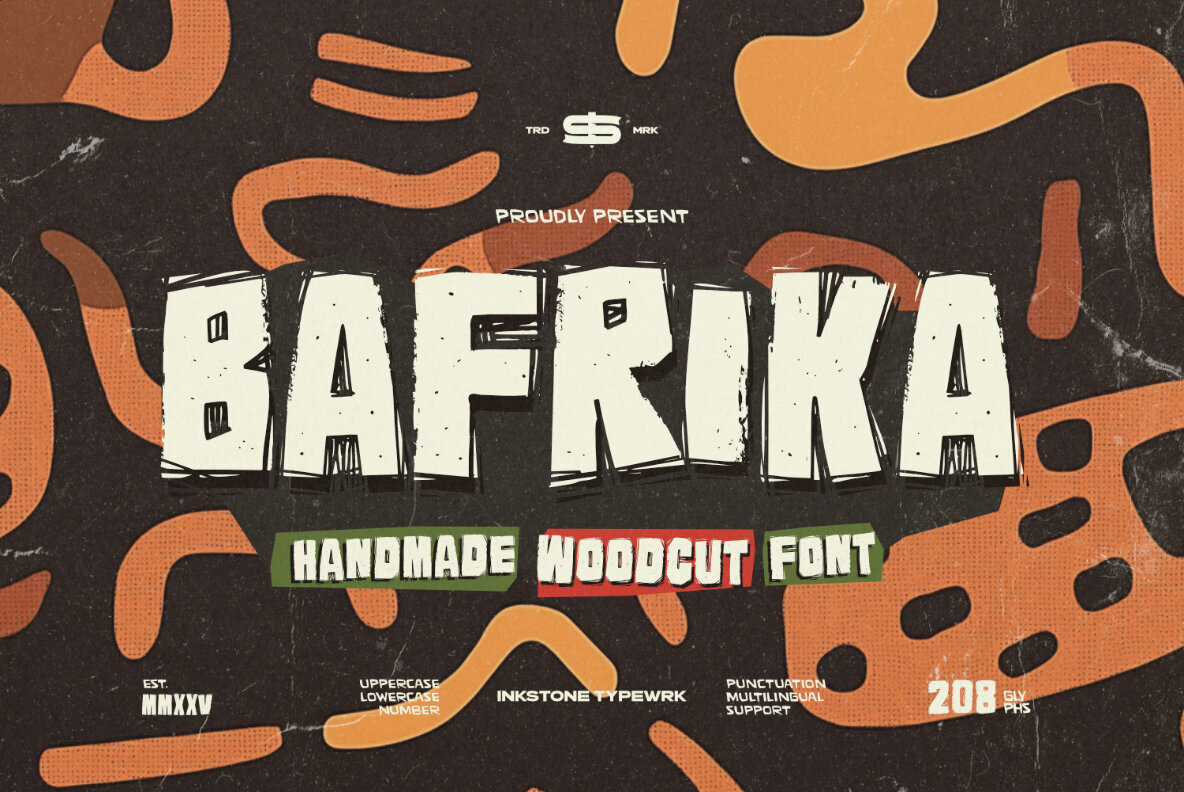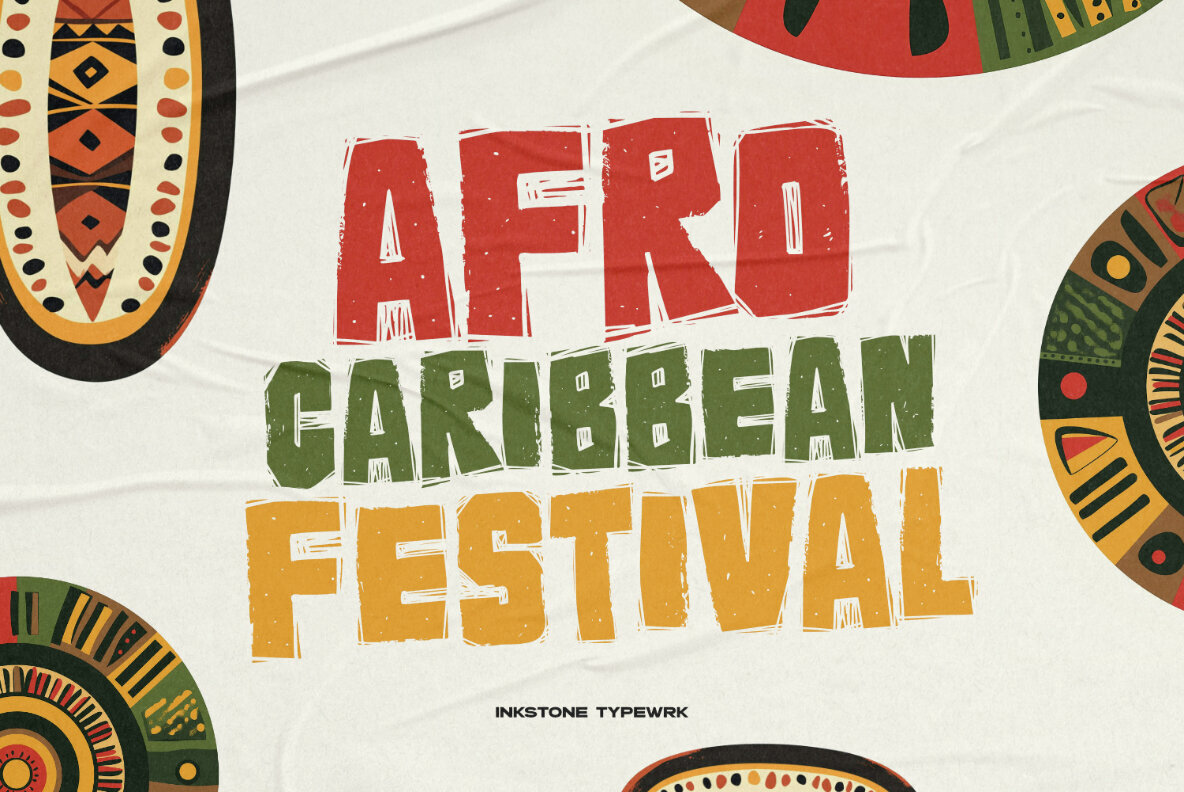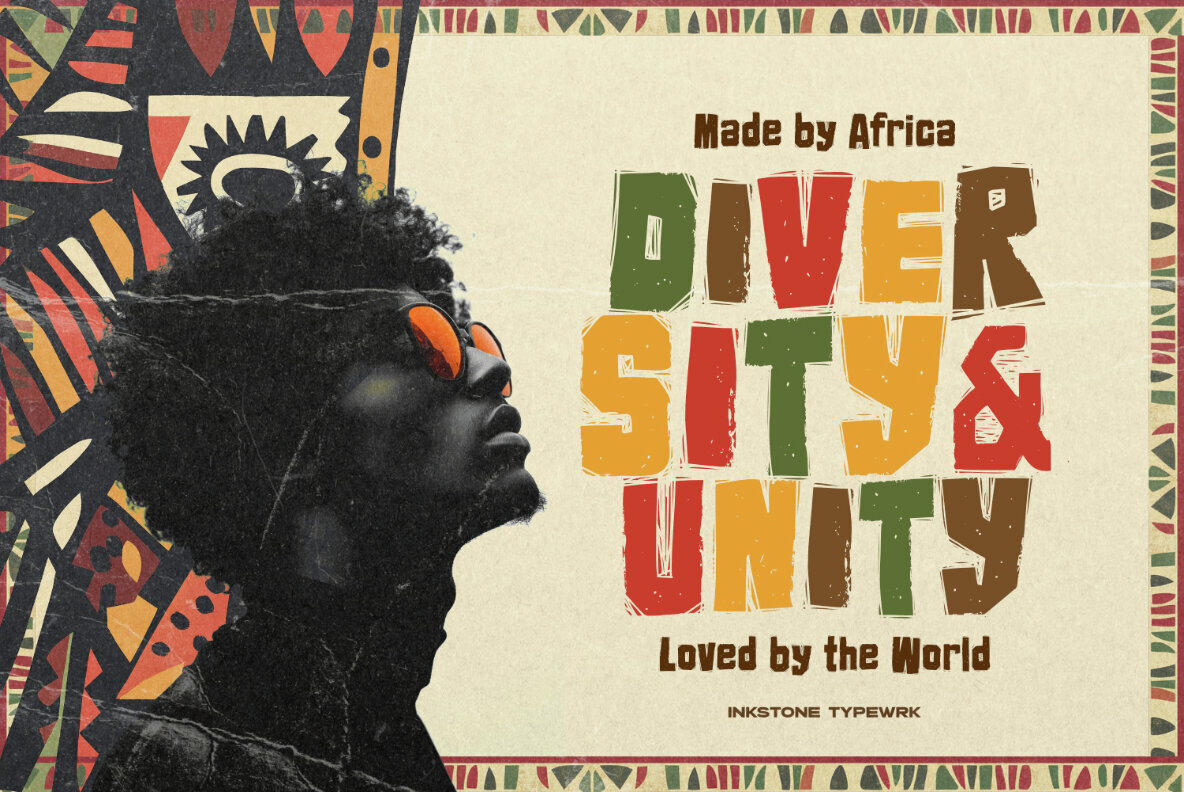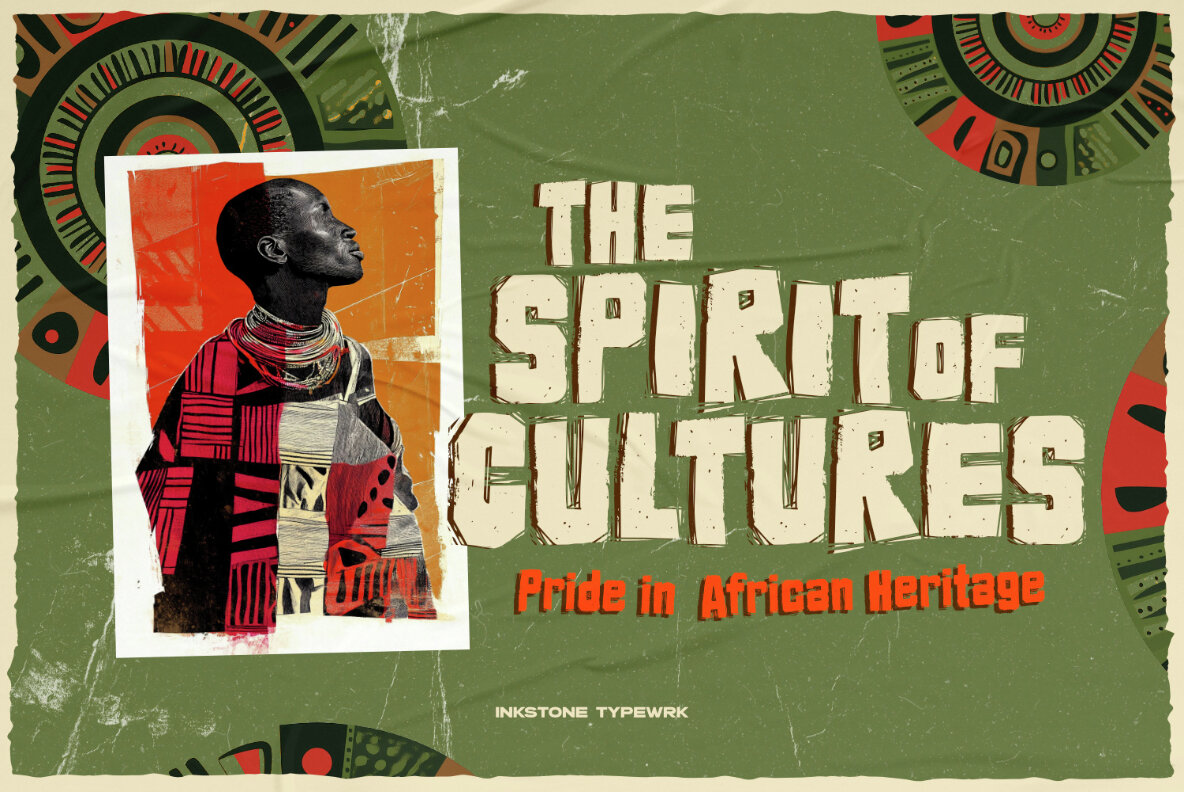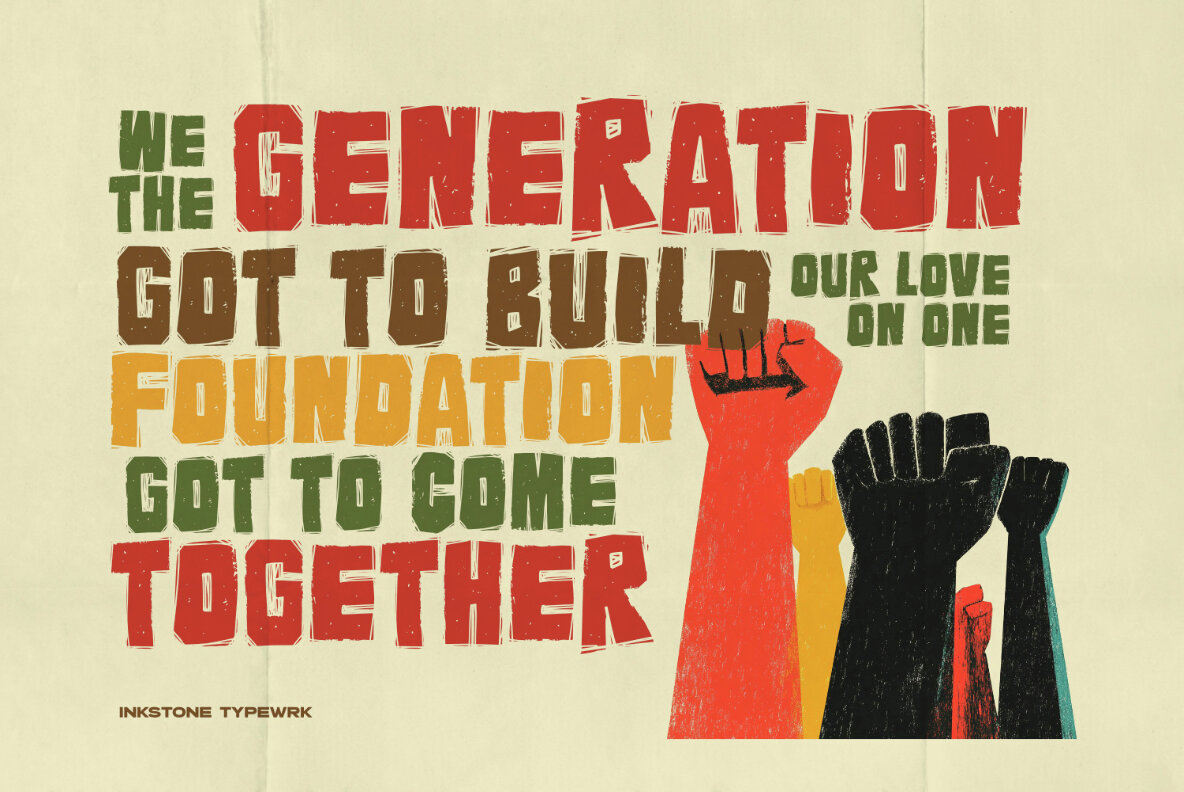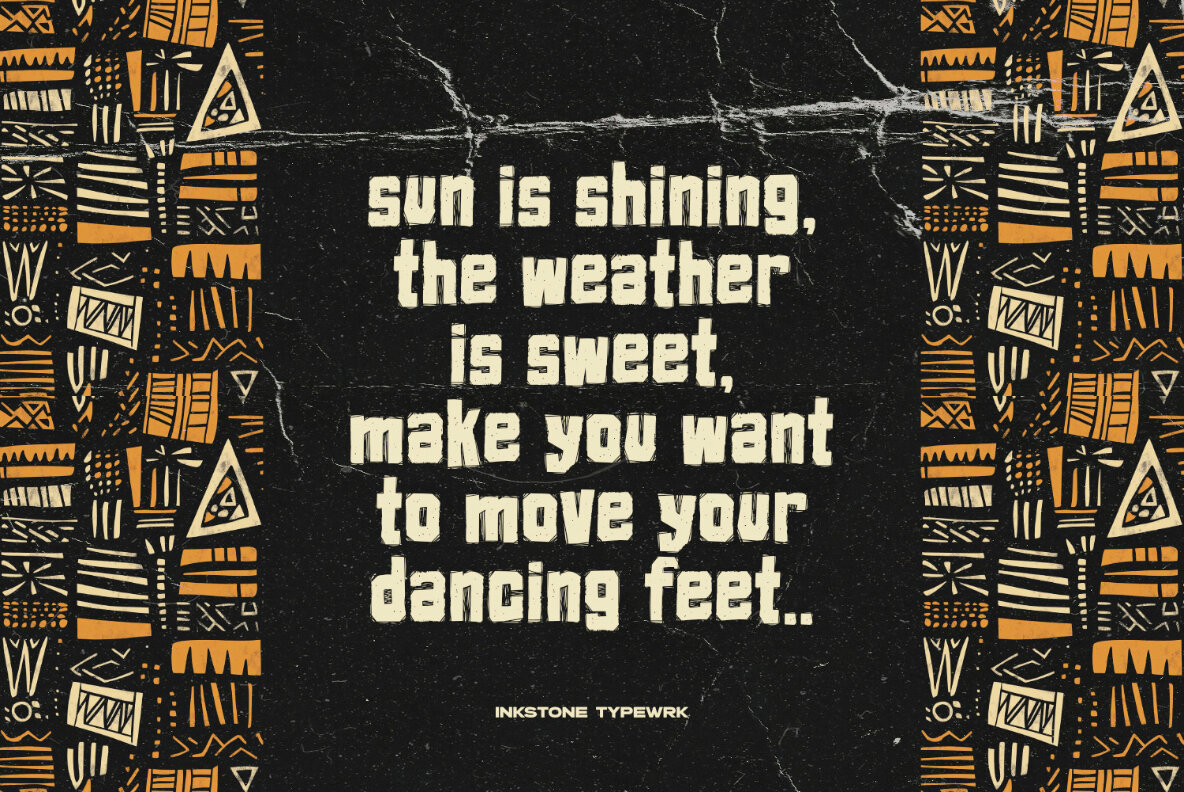
Bafrika Font
Bafrika
Bafrika captures the raw essence of African artistry. This handmade woodcut font, rich in indigenous patterns and inspired by ancient carvings, channels the bold energy of tribal culture. Its design infuses nature and storytelling into each character, making it a compelling choice for various creative projects. Ideal for Afrocentric branding, rustic packaging, and cultural posters, Bafrika stands out with its rugged textures and bold appearance. It effortlessly complements authentic festival logos, earthy fashion labels, and organic-inspired layouts, ensuring your design remains powerful and rich in heritage.Bafrika: Evoke Tribal Artistry with Handcrafted Design